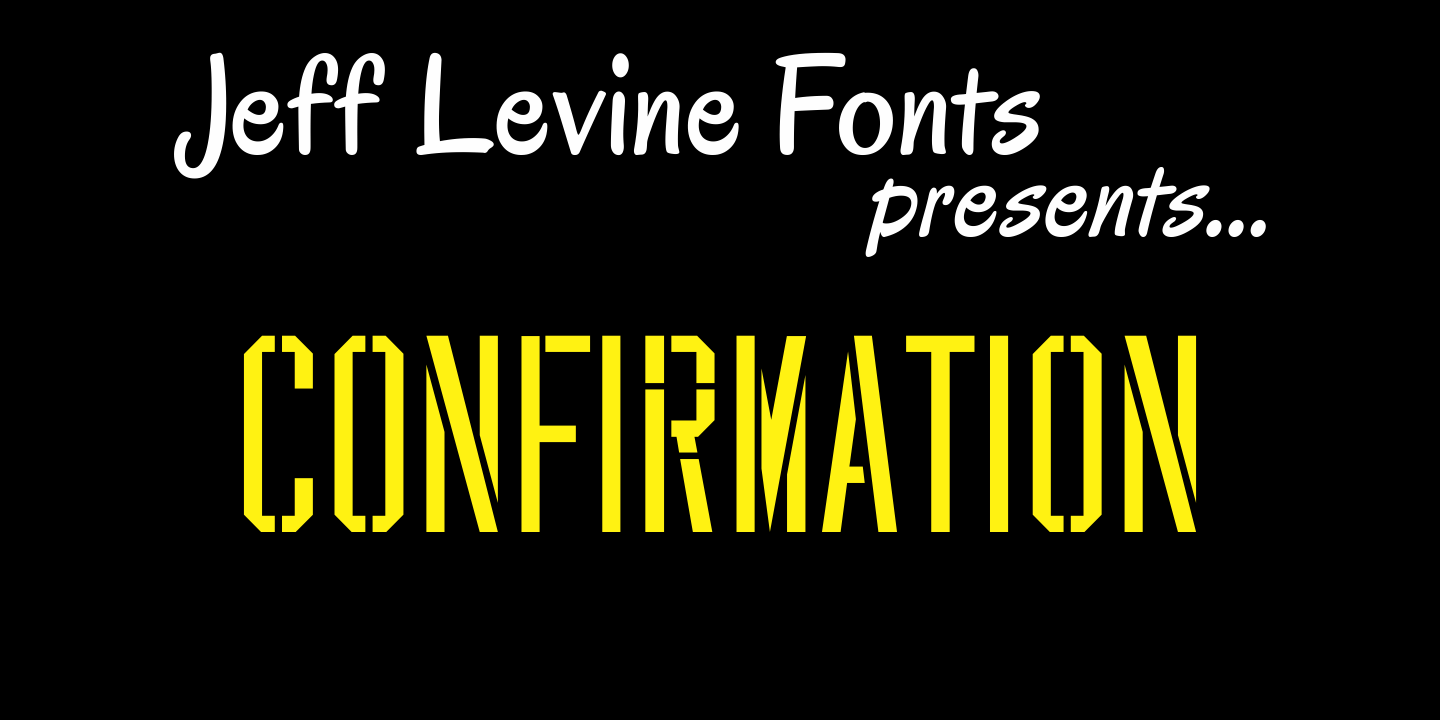
Confirmation
An old set of brass stencils spotted for sale on eBay were the inspiration for this font from Jeff Levine.
Redrawn completely from scratch, Jeff retained the narrow "M" and angled corners found in the original.